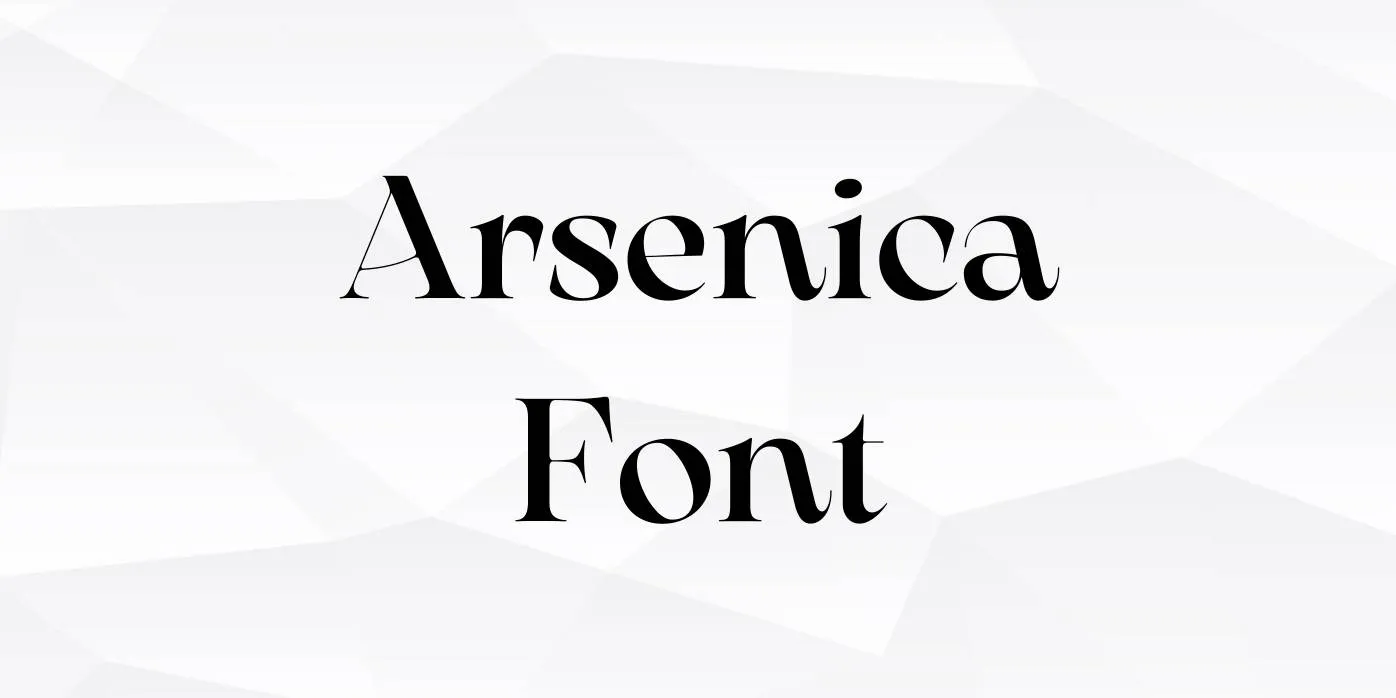
Arsenica Font
Arsenica Font is a unique font created by J.F. Arseni in 1858. The font was inspired by the popular Didot typeface and was used to create some of the first books printed in Russia. This Font is characterized by its thin, delicate strokes and high contrast between thick and thin lines.
The glyph has a wide range of weights, from Light to Bold, and each weight has its own unique character. For making something very special and unusual you can try to pair the typeface style with game of thrones font and can take a chance to get people’s attraction. The typeface contains two different versions of the lowercase “a”, one with a double story and one with a single story. The double story “a” is more common in Arsenica Font’s early history, but the single story “a” became more popular in the 20th century.